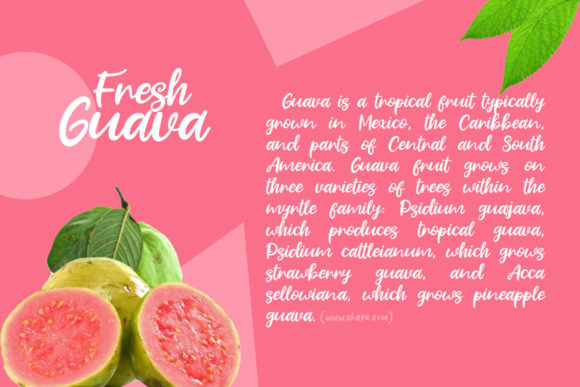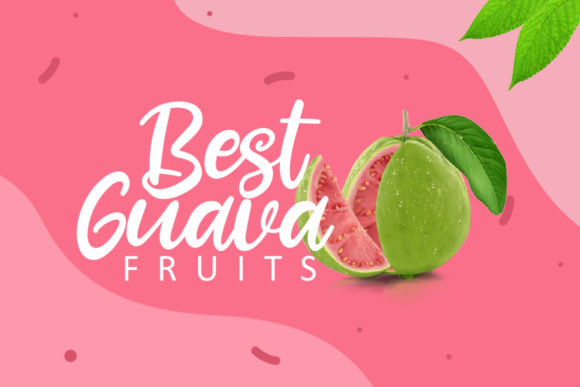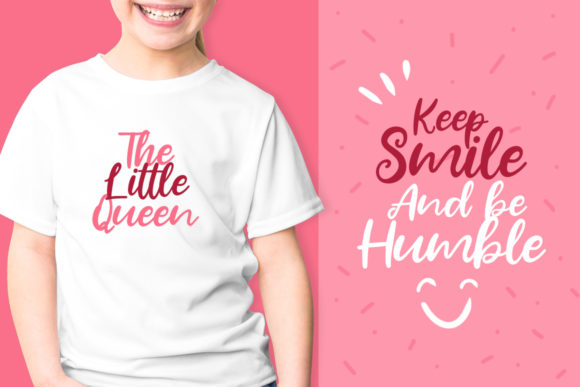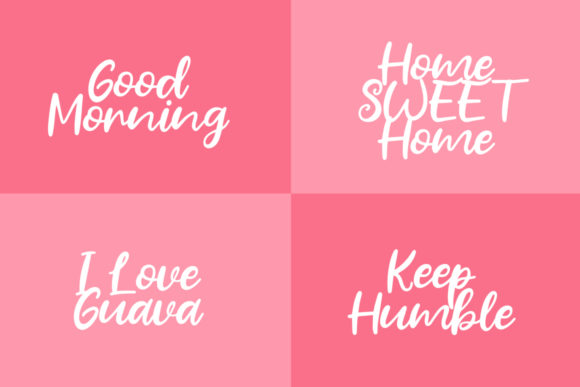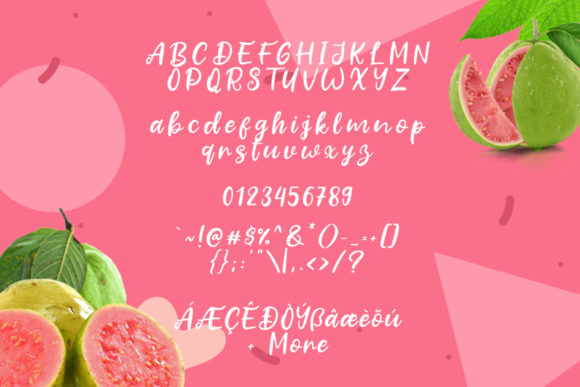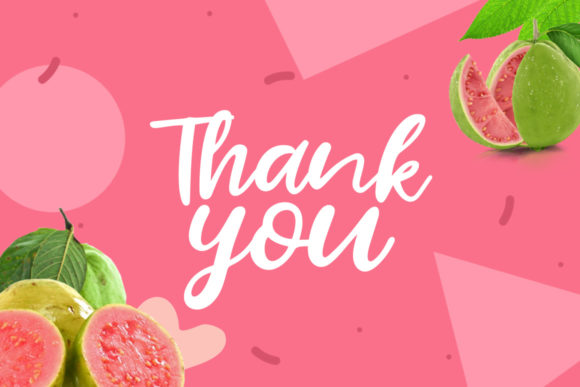
Introduction to Fresh Guava Font
You know that moment when a design idea clicks, and you just can’t wait to bring it to life? It’s the spark that drives creatives like us to keep pushing boundaries and experimenting with new ideas. For designers seeking that perfect finishing touch, we’re excited to introduce the Fresh Guava Font – a delicate, elegant, and flowing handwritten font that’s sure to elevate your most creative projects.
With its beautiful and well-balanced characters, the Fresh Guava Font is an invaluable design resource that matches a wide range of designs. Whether you’re working on a free download, a high-quality commercial project, or anything in between, this font is sure to make your ideas shine. Its transparent background and versatility make it an ideal addition to any creative project, and its high quality ensures that your designs will stand out from the crowd.
Key Features of Fresh Guava Font
- High-quality design resource ideal for creative projects, including graphic design, web design, and digital art.
- Features a transparent background, allowing for seamless integration into various design compositions.
- Unique characteristics include a vibrant and playful style, making it perfect for branding, advertising, and editorial design.
- Designed to be versatile and easy to use, making it an excellent choice for designers of all levels and experience.
Honest Review: Fresh Guava Font
As a designer, I’m always on the lookout for new and exciting design resources to enhance my creative projects. Recently, I stumbled upon the Fresh Guava Font, and I must say, it’s been a refreshing addition to my design arsenal.
- ✨ The font’s unique, tropical vibe is perfect for summer-themed designs or anything that needs a touch of warmth.
- ✨ The high-quality design ensures that the font looks great on both digital and print materials.
- ✨ The transparent background option gives me the flexibility to use it with any color scheme or design element.
- ⚠️ The font library is limited, so if you’re looking for a specific style or weight, you might be out of luck.
Overall, I’m impressed with the Fresh Guava Font, and I think it’s a great addition to any designer’s toolkit. While it’s not perfect, its unique style and high-quality design make it a valuable resource for creative projects.
Use the Fresh Guava Font in conjunction with a transparent background to create a modern and sleek design. Experiment with different font sizes and styles to add depth and visual interest to your creative project.
Common Use Cases for Fresh Guava Font
The Fresh Guava Font is ideal for use in creative projects such as branding, marketing materials, and social media graphics. Its high quality and versatility make it a great addition to any design resource.